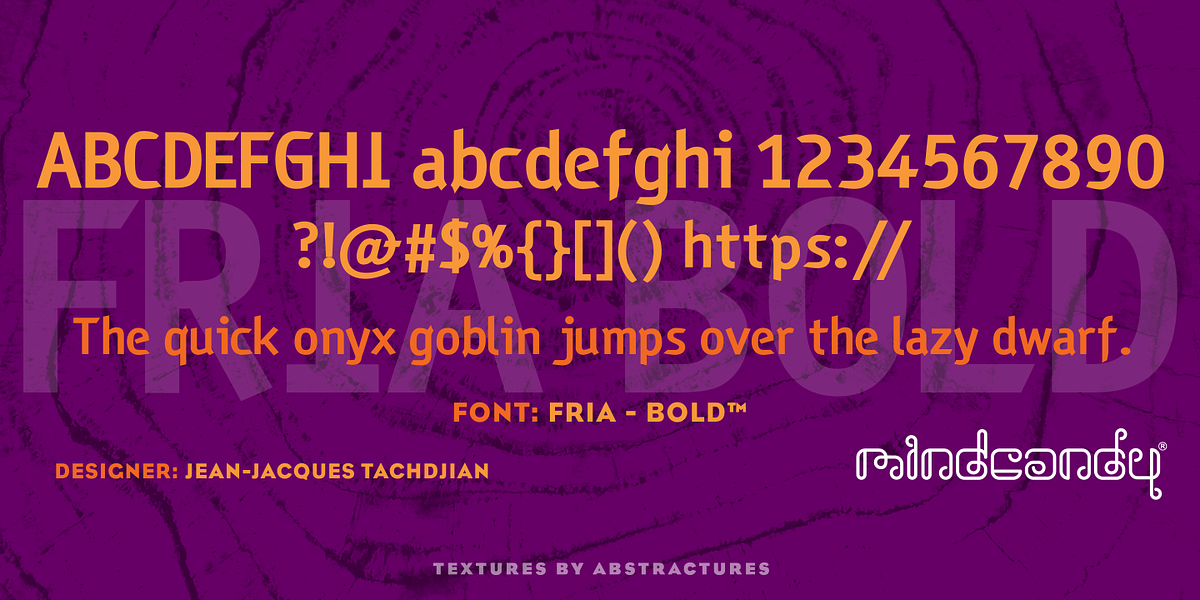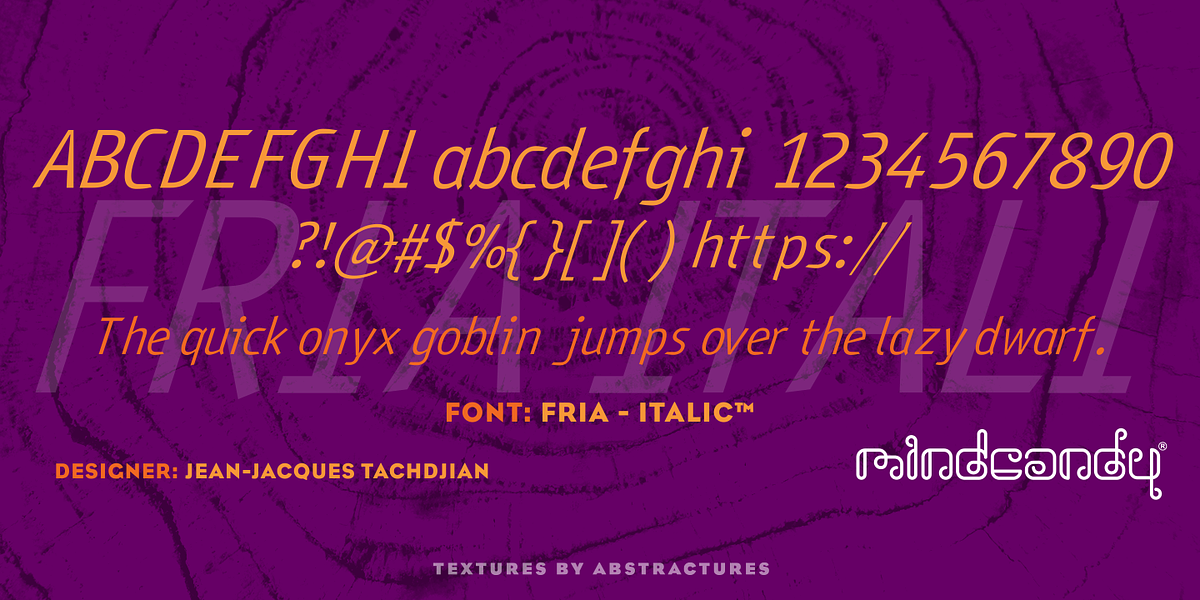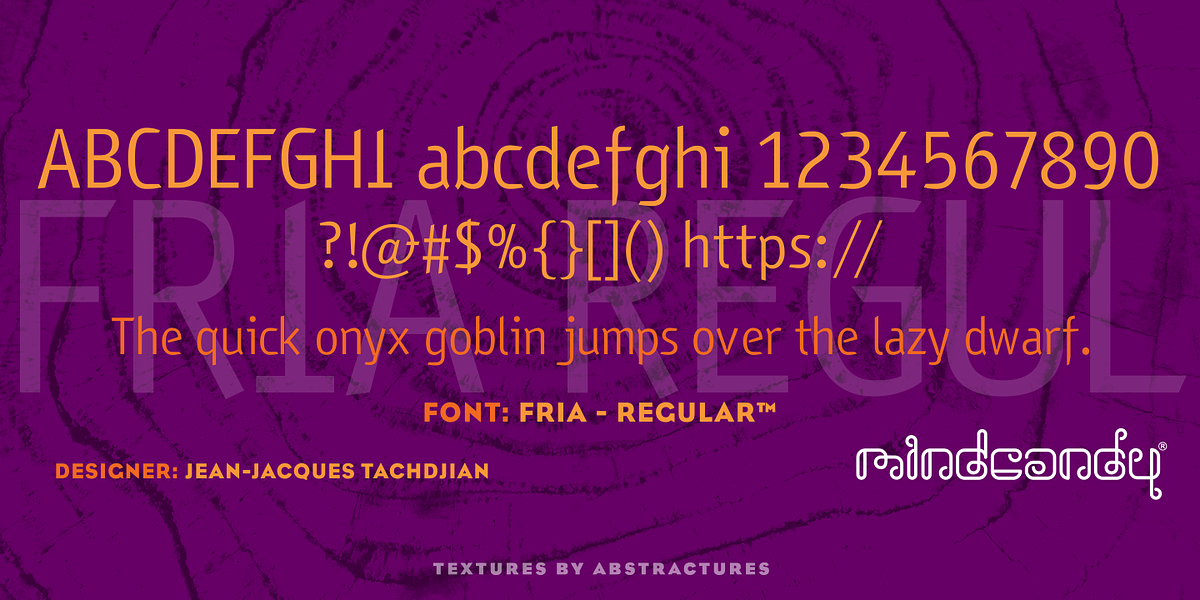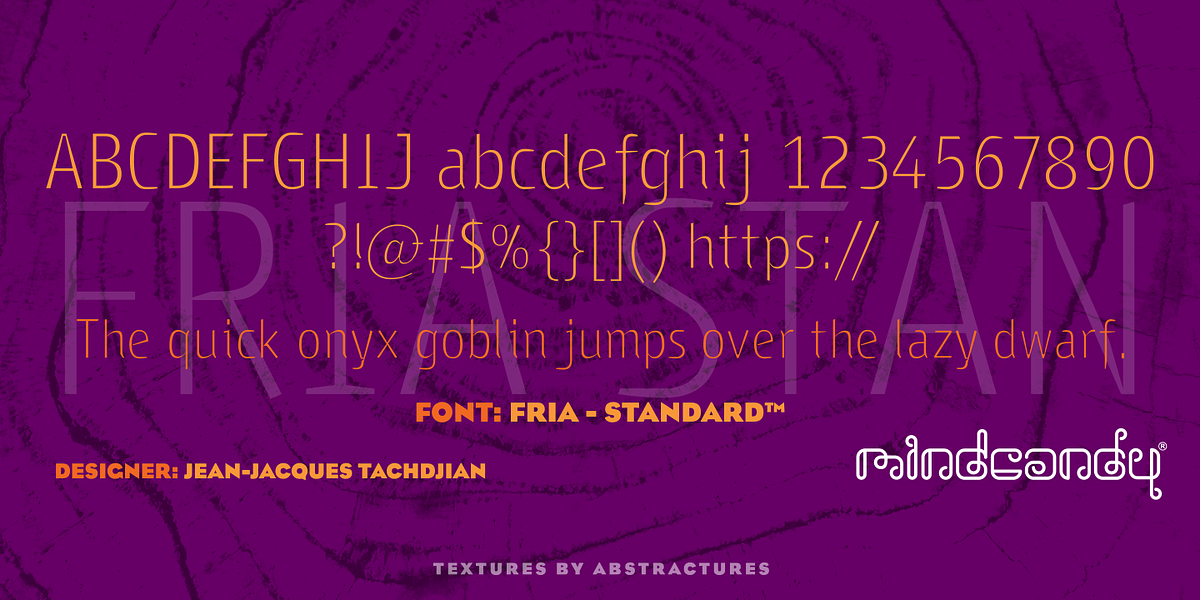
Fria™
This font, designed by Jean-Jacques Tachdjian, is a novelty display sans serif typeface. Its unique design makes it ideal for headlines, branding and other display applications where a playful and eye-catching aesthetic is desired.